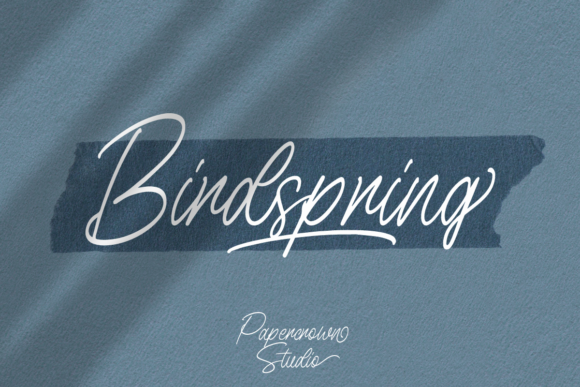
Dive into the world of Birdspring Font, a captivating journey through the realm of calligraphy. Created by Rillatype, this script font exudes elegance and charm, transforming your designs into masterpieces that speak to the heart.
With Birdspring Font, your creations will blossom into works of art, leaving an unforgettable impression on beholders. Its enchanting curves and delicate strokes evoke a sense of timeless beauty, capturing the essence of handwritten artistry.
Unlock the secrets of Birdspring Font, a treasure trove of creativity that awaits your exploration. Its versatility knows no bounds, effortlessly adapting to a myriad of projects. Whether you're a seasoned designer seeking to elevate your branding or a novice venturing into the realm of digital artistry, Birdspring Font is your trusted companion.
Immerse yourself in the limitless possibilities of Birdspring Font. Its graceful characters lend an air of sophistication to wedding invitations, adding a touch of whimsy to social media posts, and igniting imaginations in children's books. Let your creativity soar as Birdspring Font weaves its magic, transforming ordinary designs into captivating expressions of art.
Embark on a voyage of artistic discovery with Birdspring Font, your ultimate gateway to a world of captivating designs. Let its charm and elegance elevate your creations, leaving a lasting impression on all who encounter them. Seize the opportunity to make your designs shine brighter than ever before.